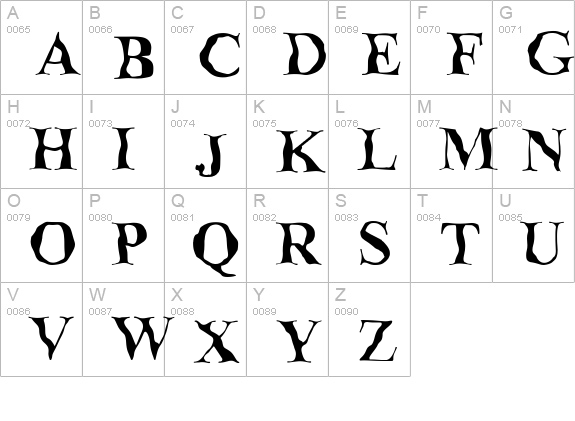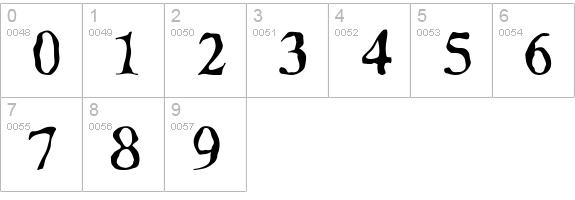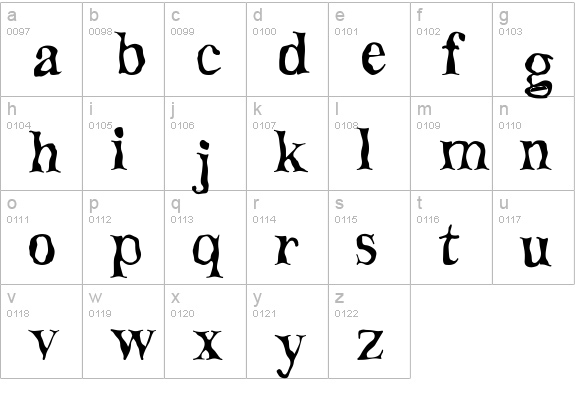
Decomposing Font Details
Decomposing font is a mesmerizing and unique typeface that captures the essence of artistic decay and beauty. Its intricate design features intricate lines and curves that give it a truly distinctive and edgy look. The letters appear to be breaking down into fragments, creating a sense of depth and mystery. This stunning font is perfect for projects that require a touch of avant-garde style and creativity. Whether you're designing a poster, logo, or branding materials, Decomposing font will add a bold and unconventional touch to your work. Best of all, Decomposing font is completely free to download at FontsMarket.com. So go ahead and unleash your creativity with this remarkable typeface and make your designs stand out from the crowd!